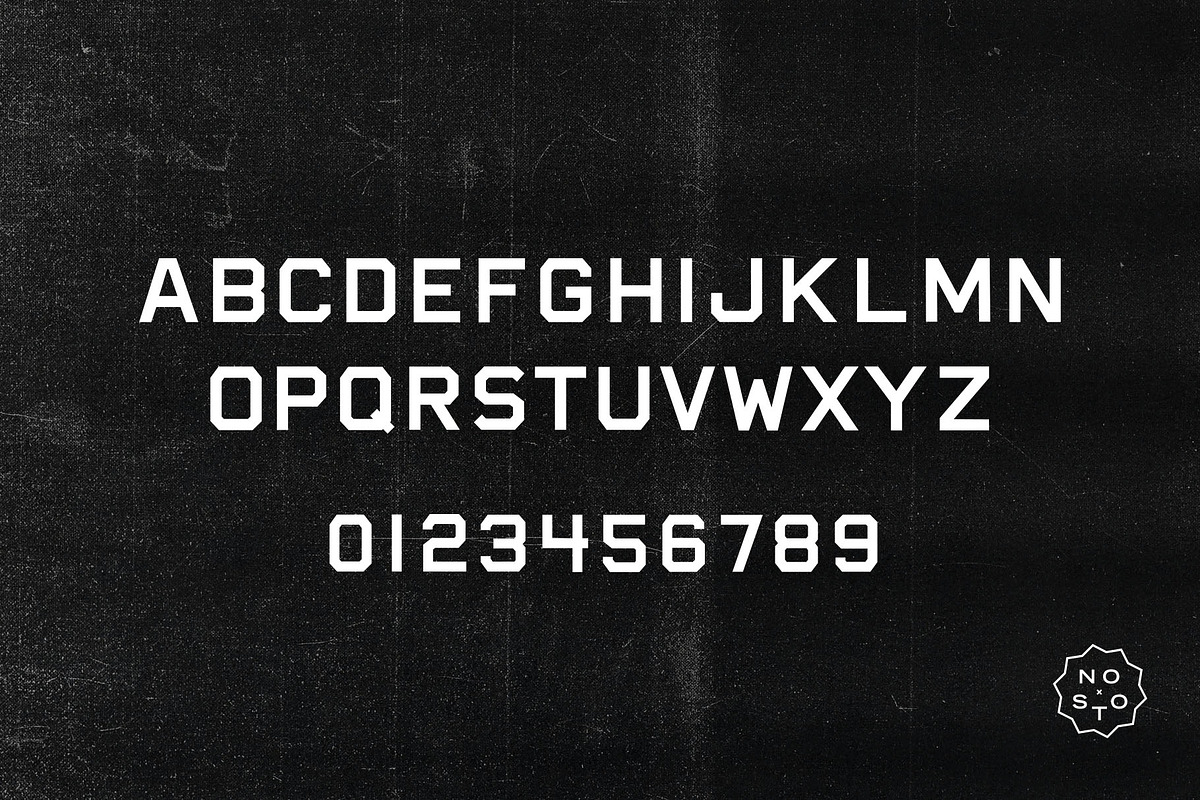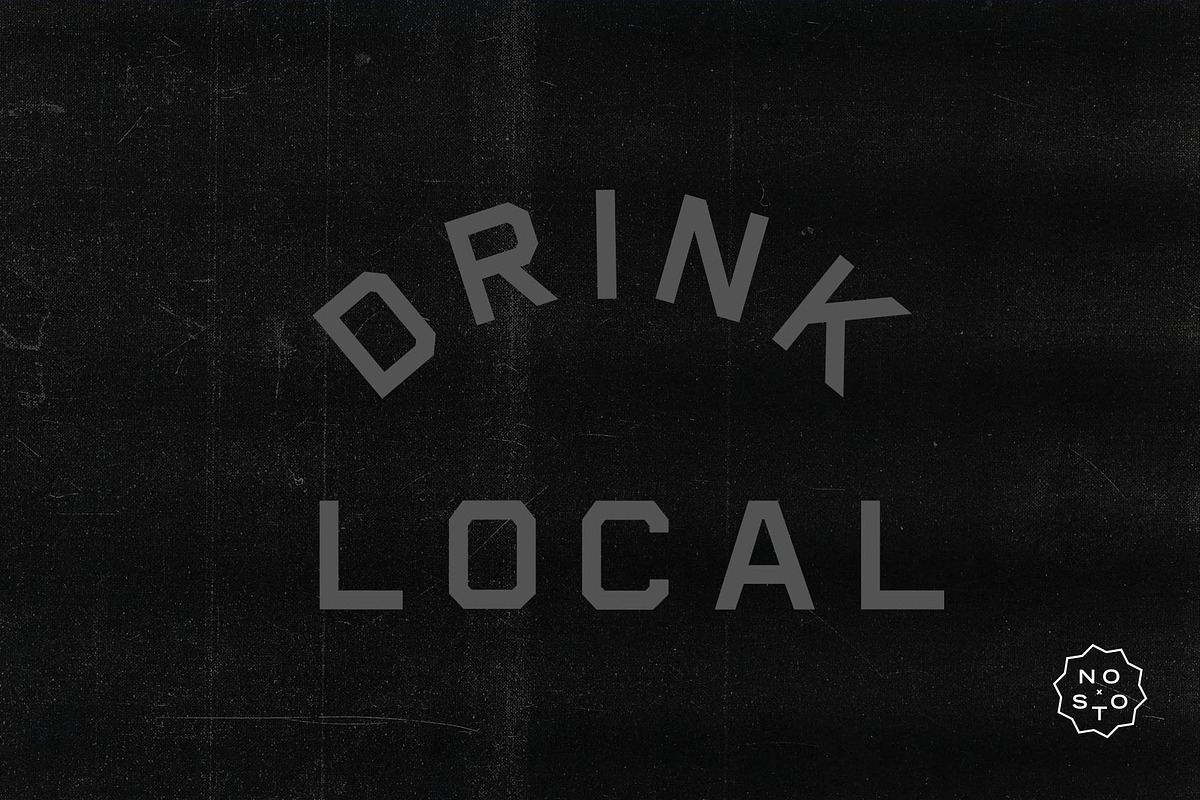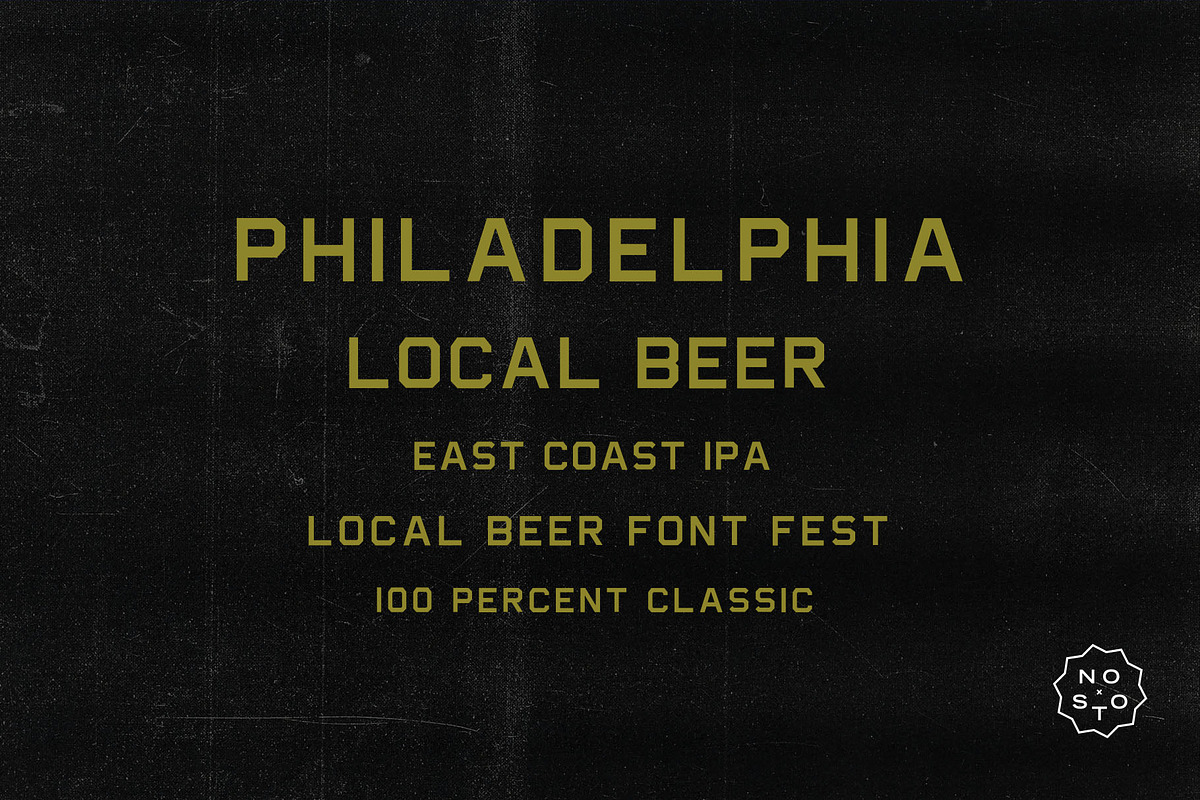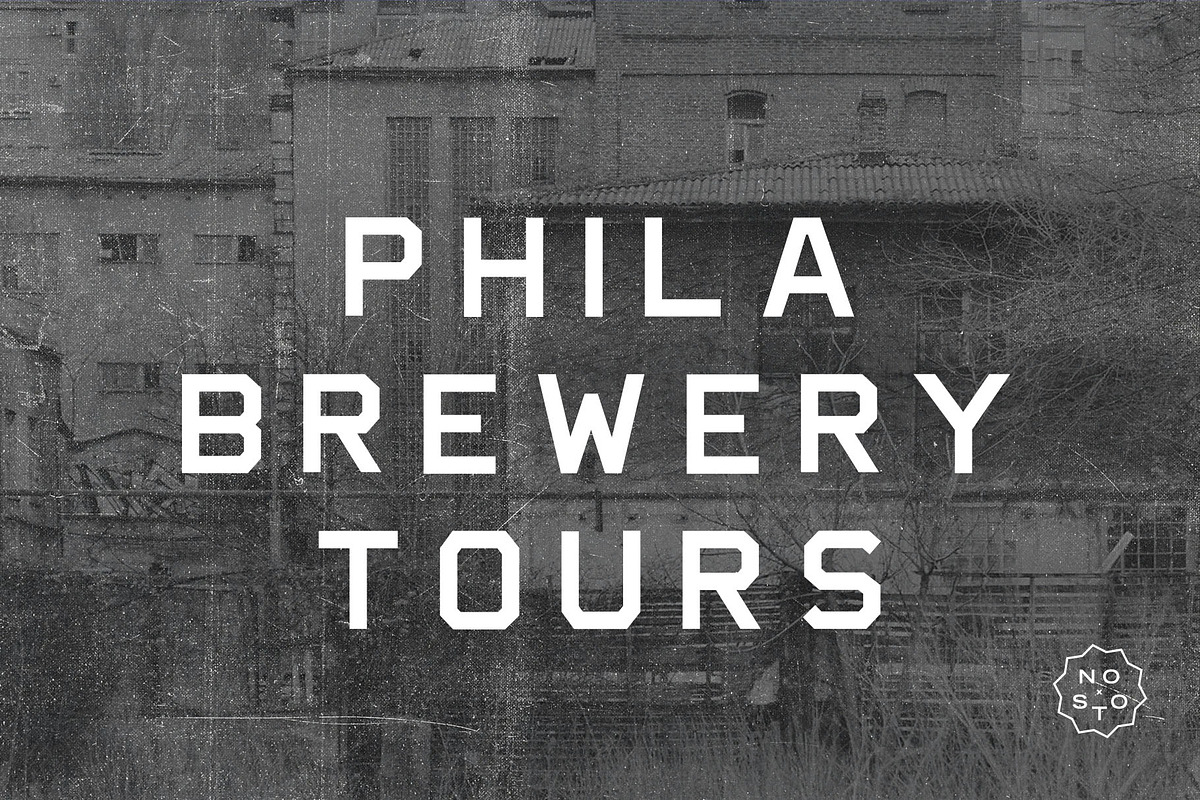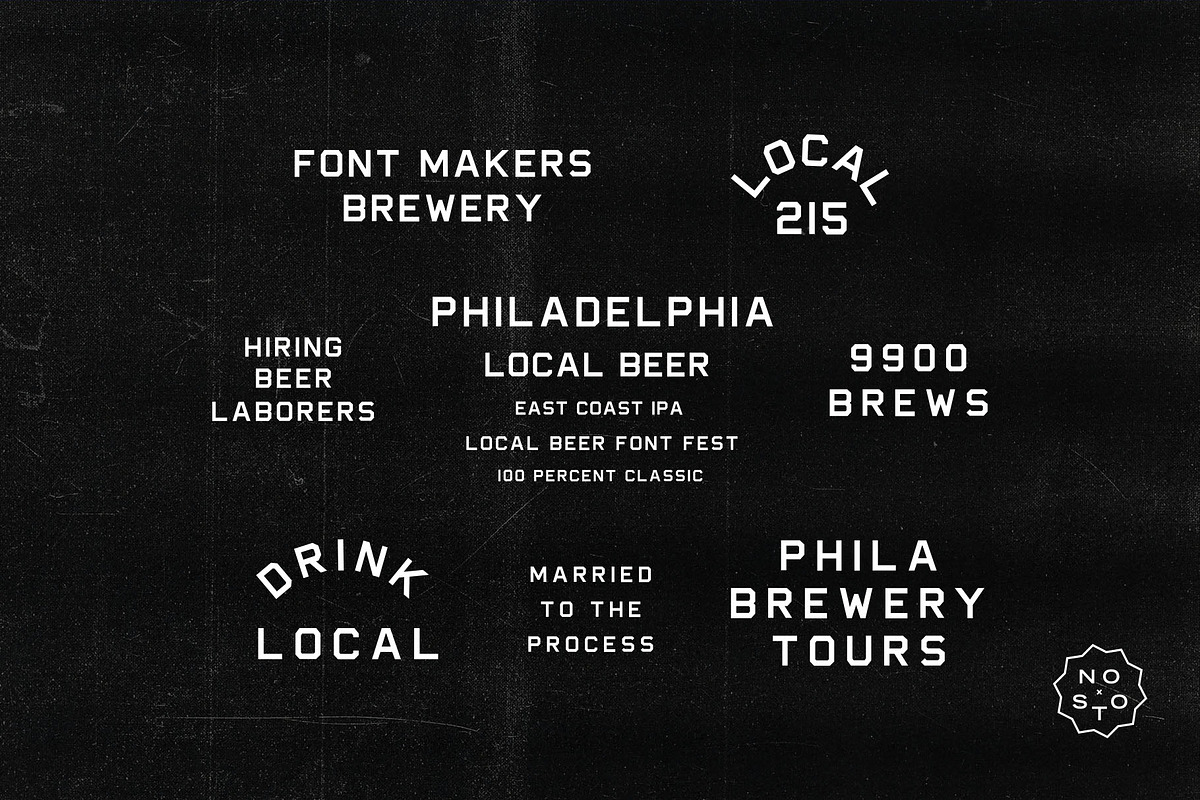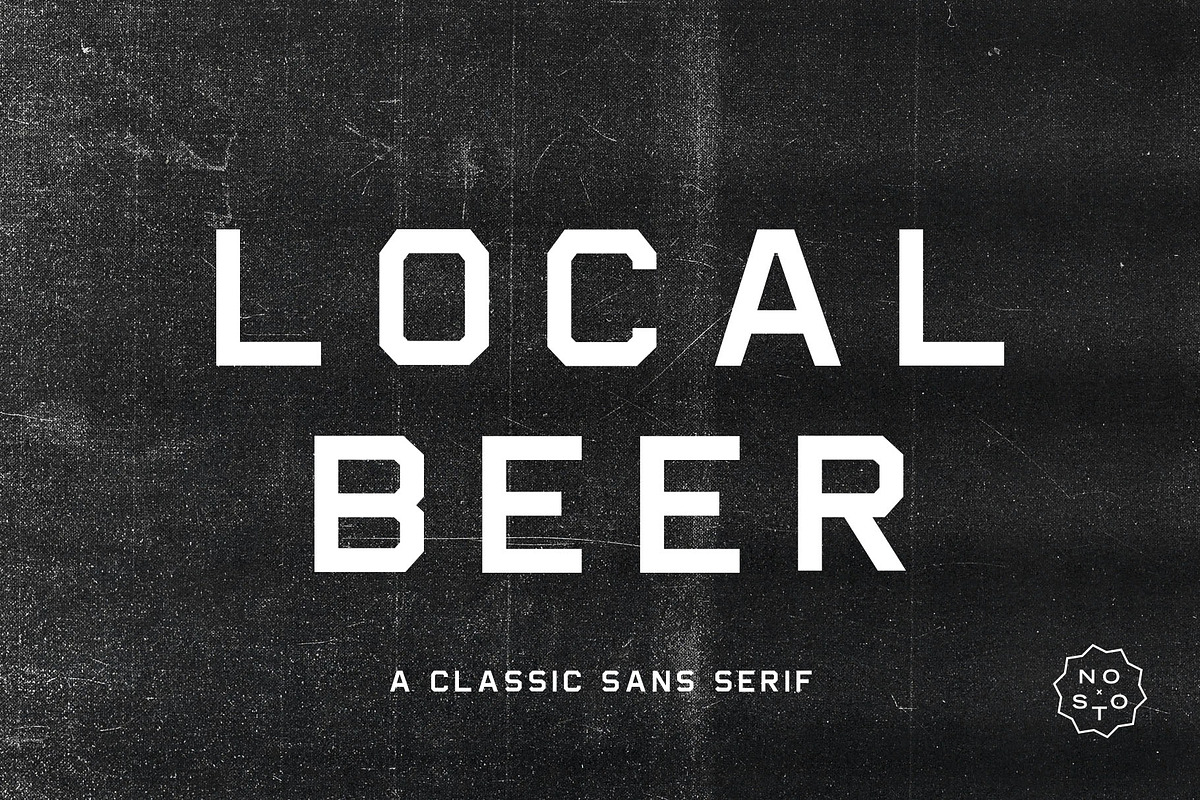
Local Beer
Introducing Local Beer - a Classic Sans Serif. Inspired by classic beer crates, Local Beer is perfect for labels, classic & timeless designs, apparel, and many more things. The font can be used with different color ways, and displays boldly in windows and on designs. Are you struggling to make your business look like it's been around forever? Grab Local Beer.